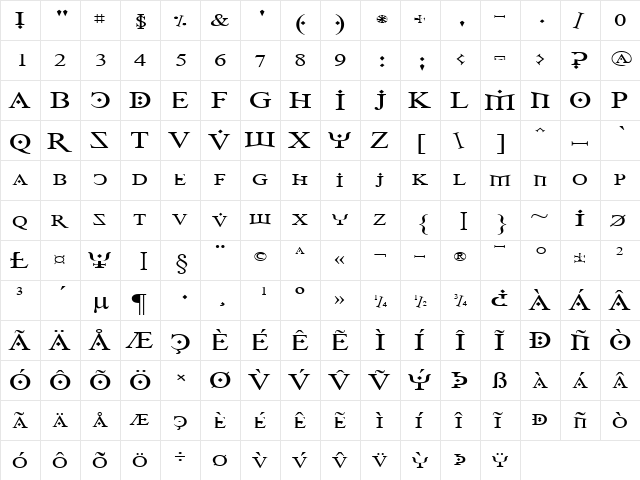
Fire Of Ysgard Wide Regular
Design Context for Fire Of Ysgard Wide Typeface
Fire Of Ysgard Wide is a composed and adaptable typeface that performs quietly and consistently across a wide range of design contexts.